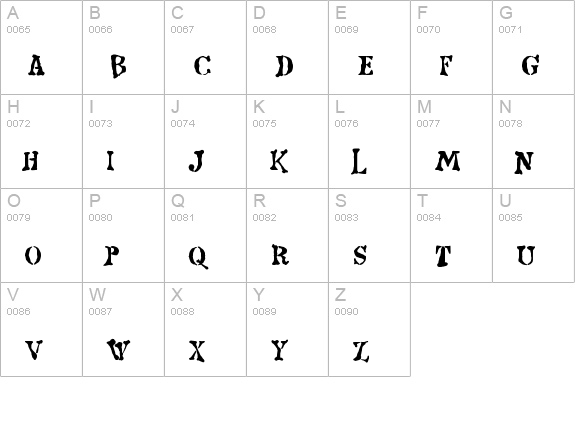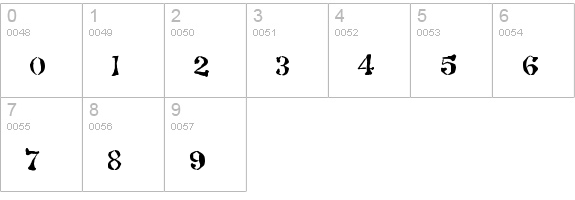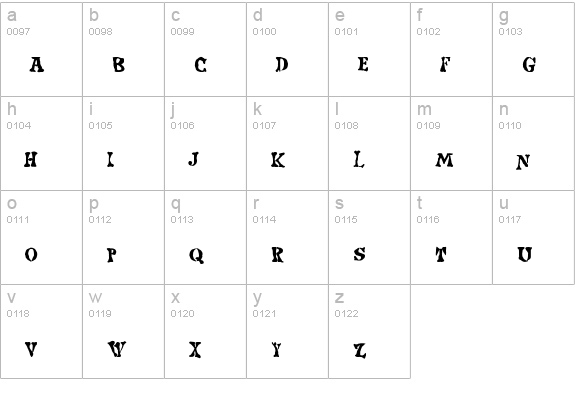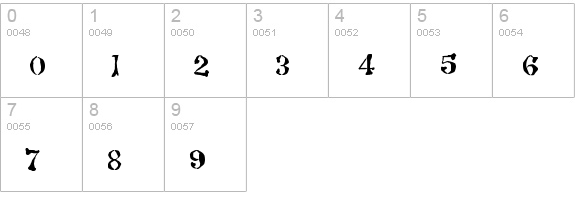
Welcome to the enchanting world of Strange World font! This unique and captivating typeface is sure to leave a lasting impression on any design project. With its mysterious and otherworldly appearance, Strange World font transports your text to a realm of imagination and intrigue. The intricate details and intricate curves of Strange World font add an element of surprise and curiosity to your designs. Whether you're working on a logo, poster, or website, this font will effortlessly elevate your creations to new heights. One of the most incredible aspects of Strange World font is that it is freely available for download at FontsMarket.com. Yes, you read that right - this extraordinary font can be yours without any cost. FontsMarket.com recognizes the importance of accessibility and creativity, and that's why they offer this font as a gift to designers and artists around the world. So, go ahead and explore the wonders of Strange World font. Unleash your imagination and let this font take your designs on an adventure like no other. Download it today and embark on a journey to a strange and beautiful world of typography.